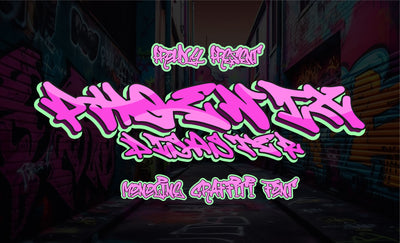
Phoenix Disaster - Monoline Graffiti Font
Phoenix Disaster is a monoline graffiti font with natural street handwritten accents. This font is perfect for a wide range of design projects with an urban or street theme. With its edgy and raw style, Phoenix Disaster brings an authentic street vibe to your typography. Whether you're working on urban branding, streetwear designs, or any other project that requires a gritty and dynamic look, this font will add a touch of urban flair and make your designs stand out. Unleash your creativity and embrace the urban energy with Phoenix Disaster font.
- Graffiti Characters looks